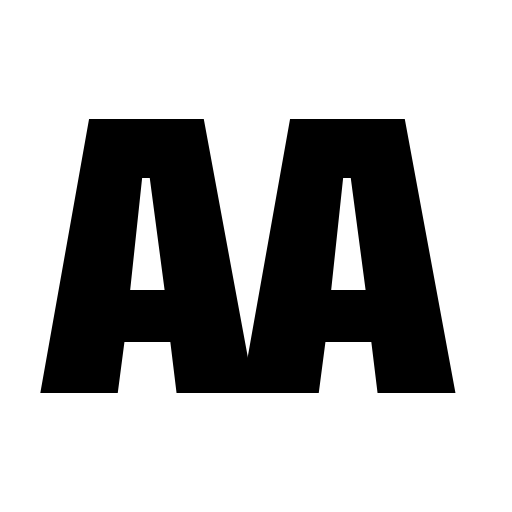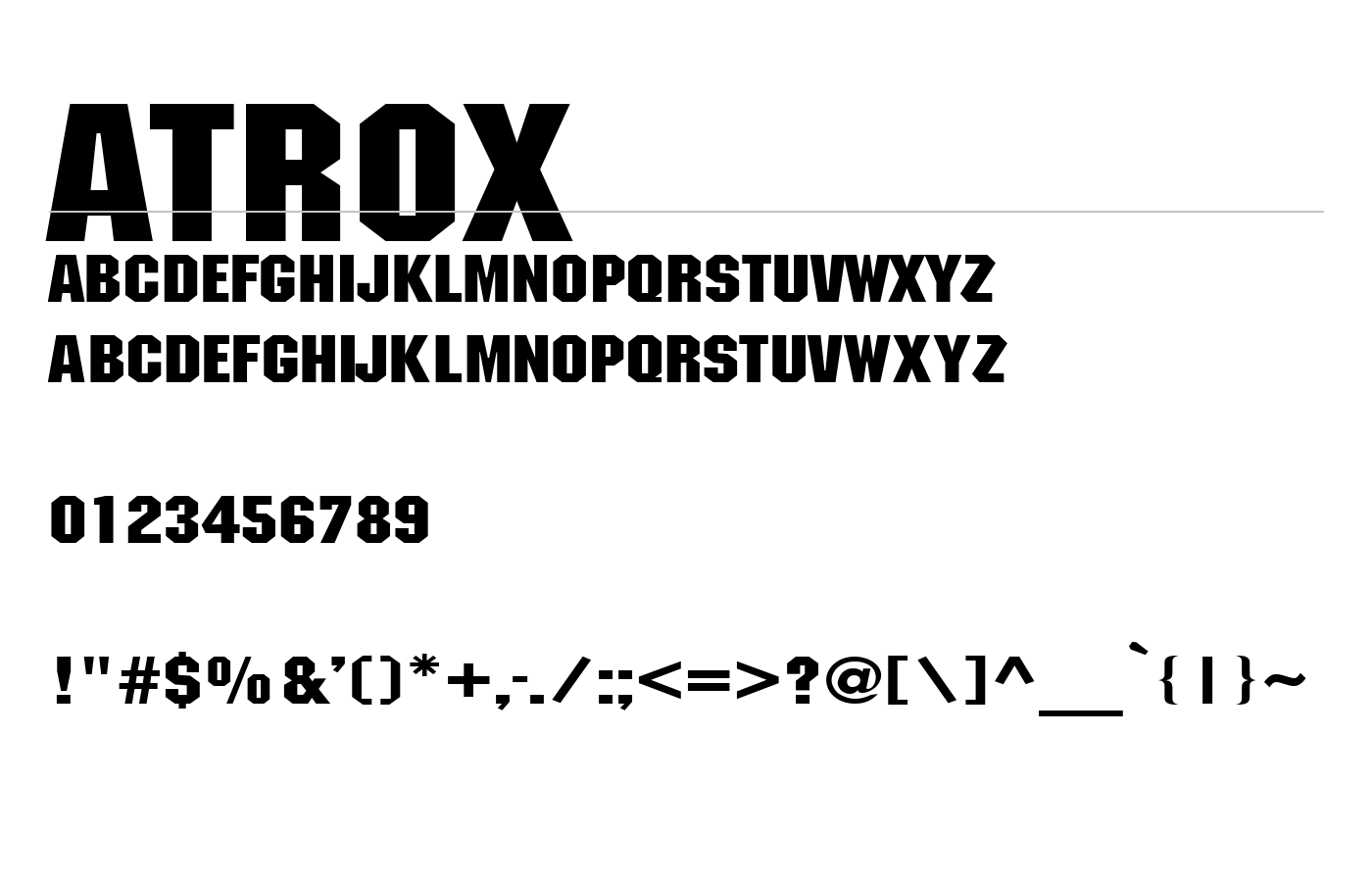
Atrox is a bold, condensed sans serif font with a strong, geometric structure that commands attention. Its solid, blocky letterforms and sharp edges give it a powerful, industrial feel, making it ideal for impactful headlines, logos, and branding that require a modern and assertive presence. This font works especially well in contexts where clarity and boldness are key, such as posters, packaging, and sports or adventure-themed designs.
ATROX Font
About ATROX Font